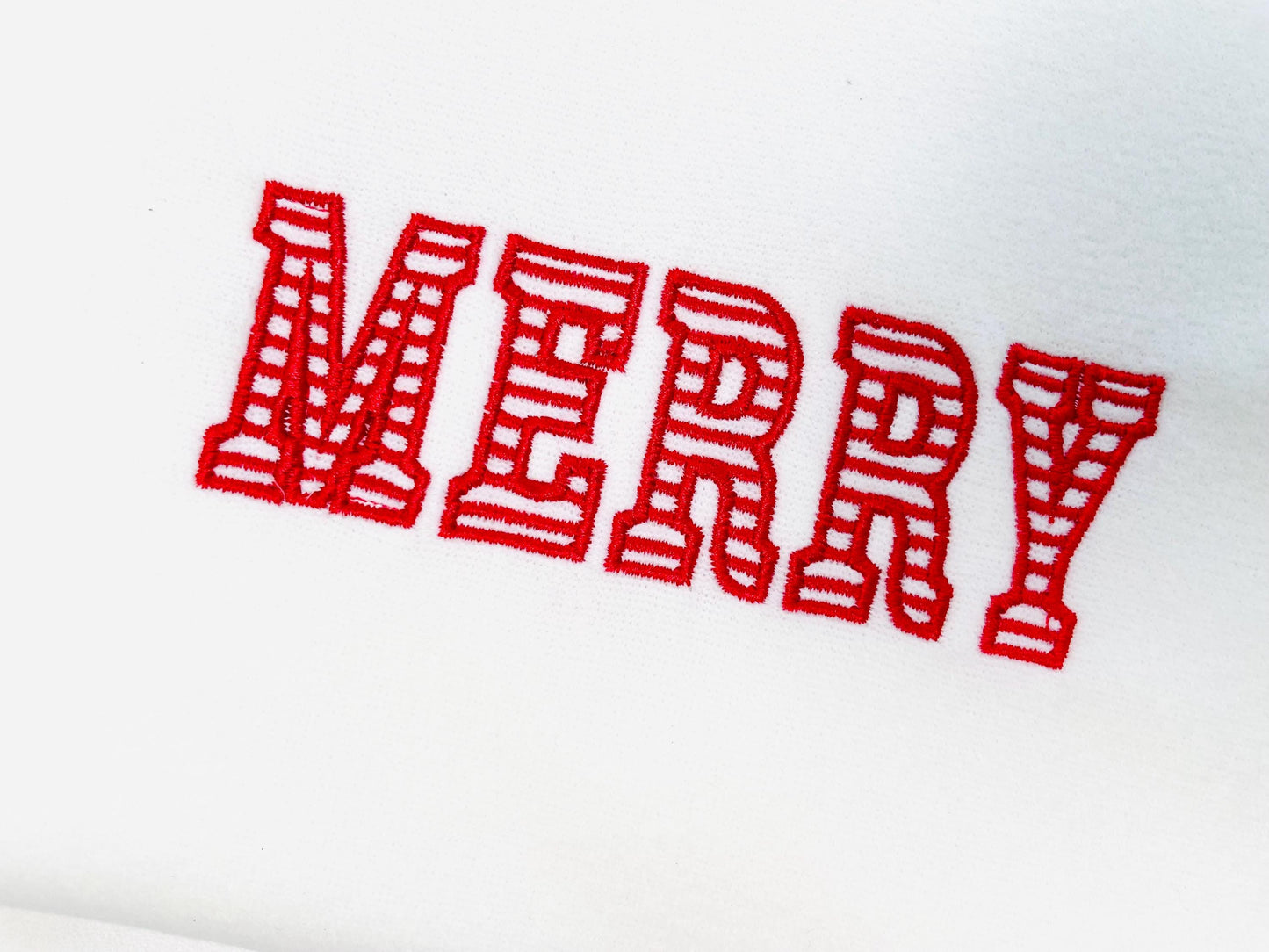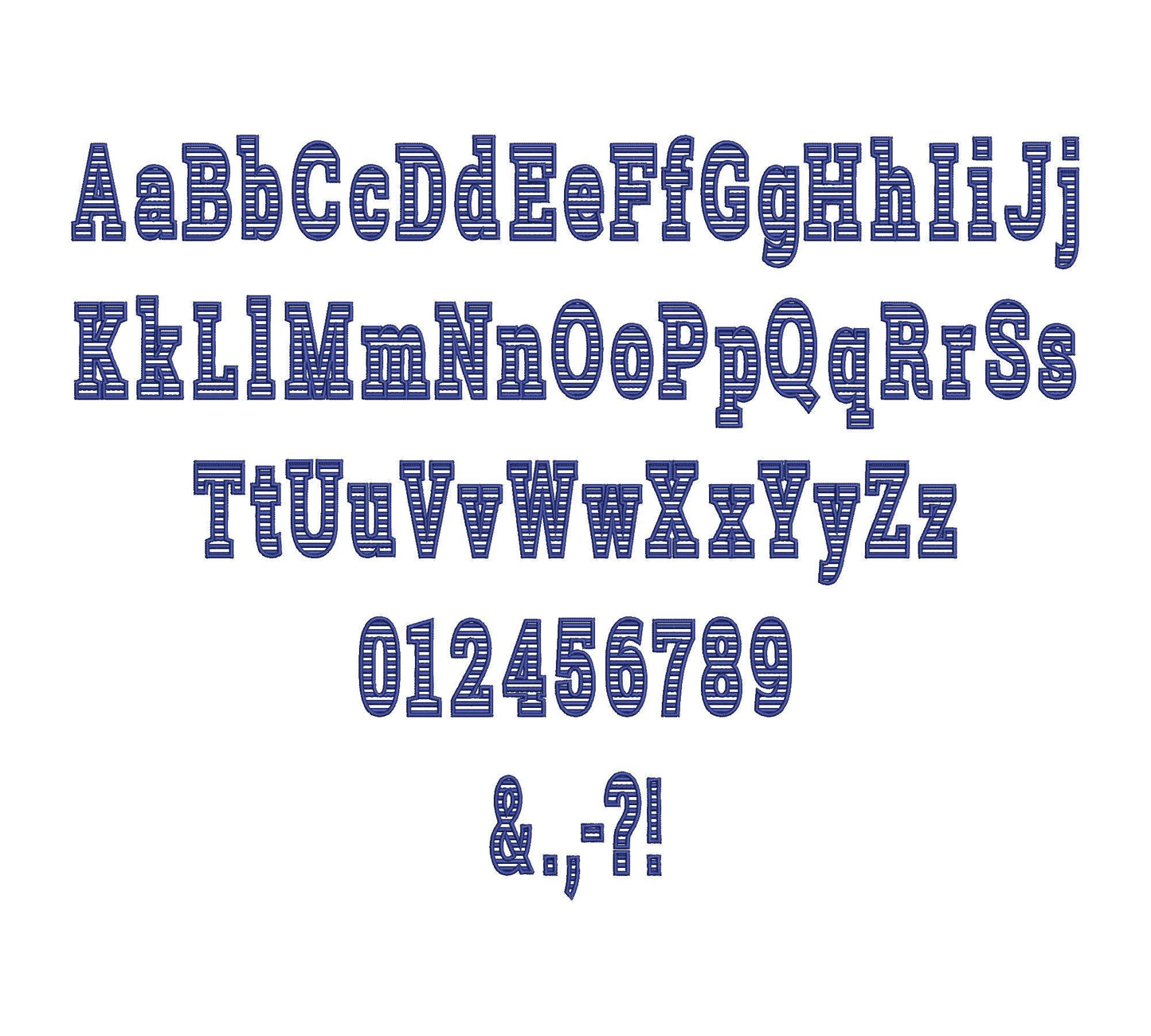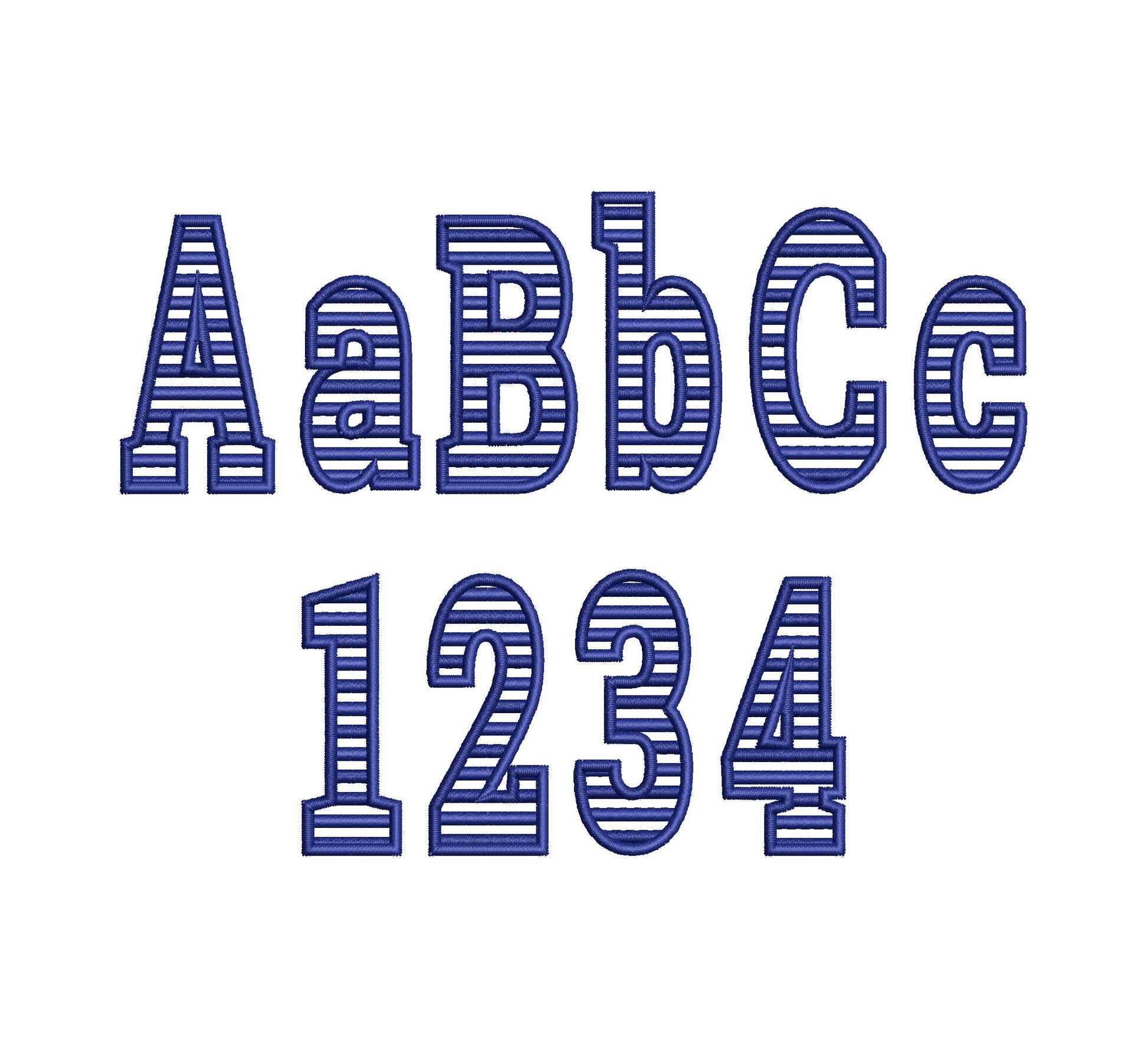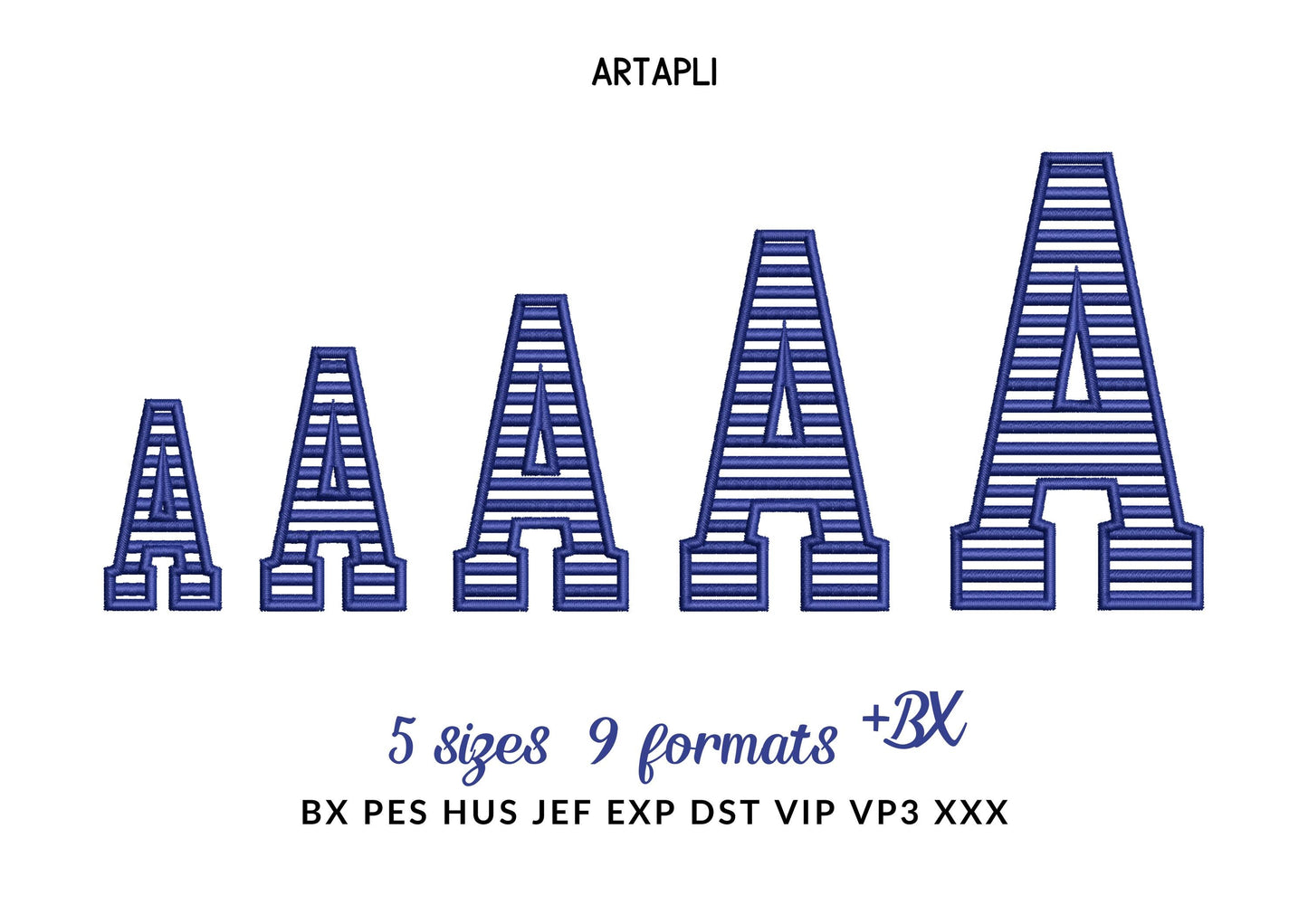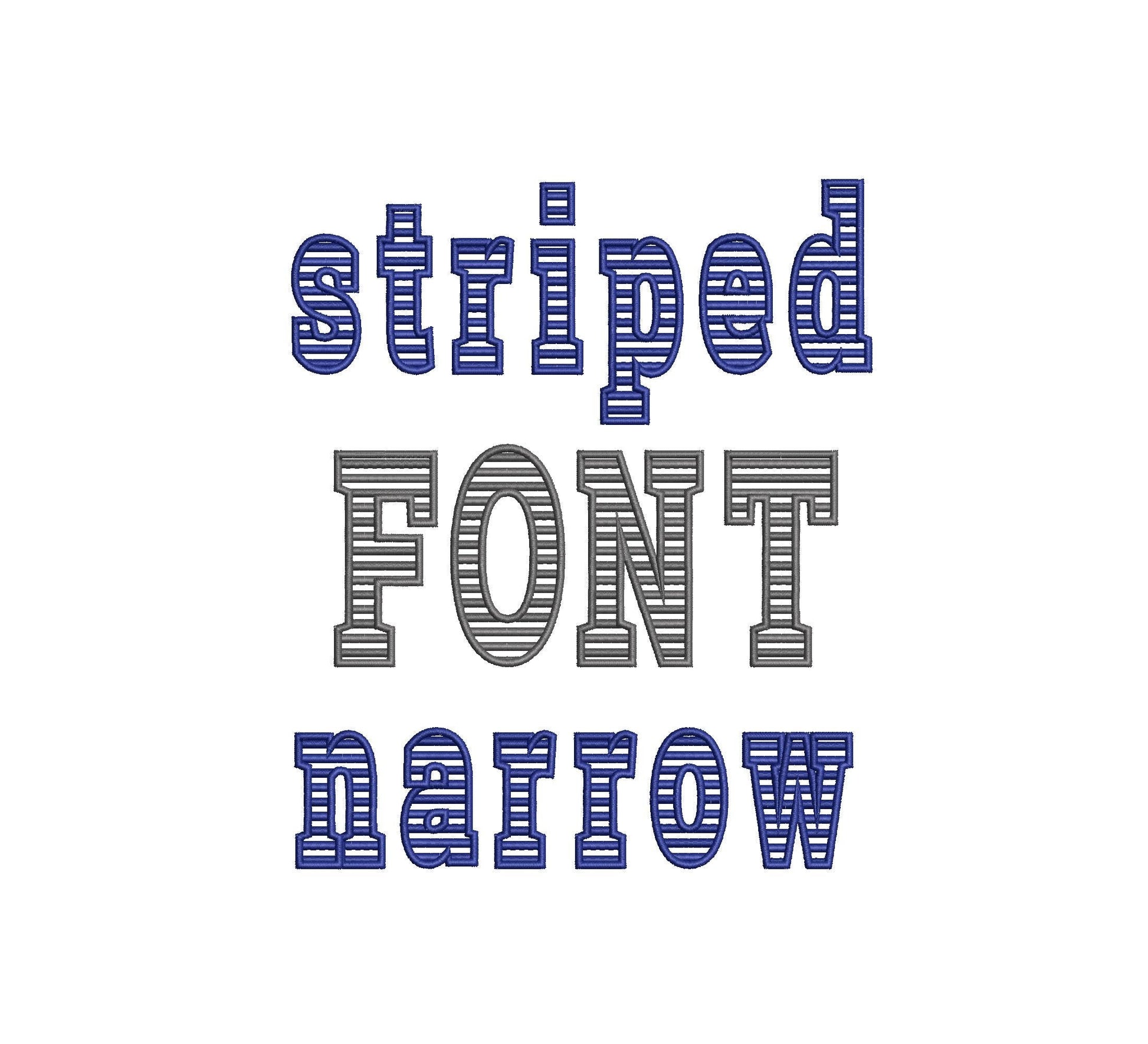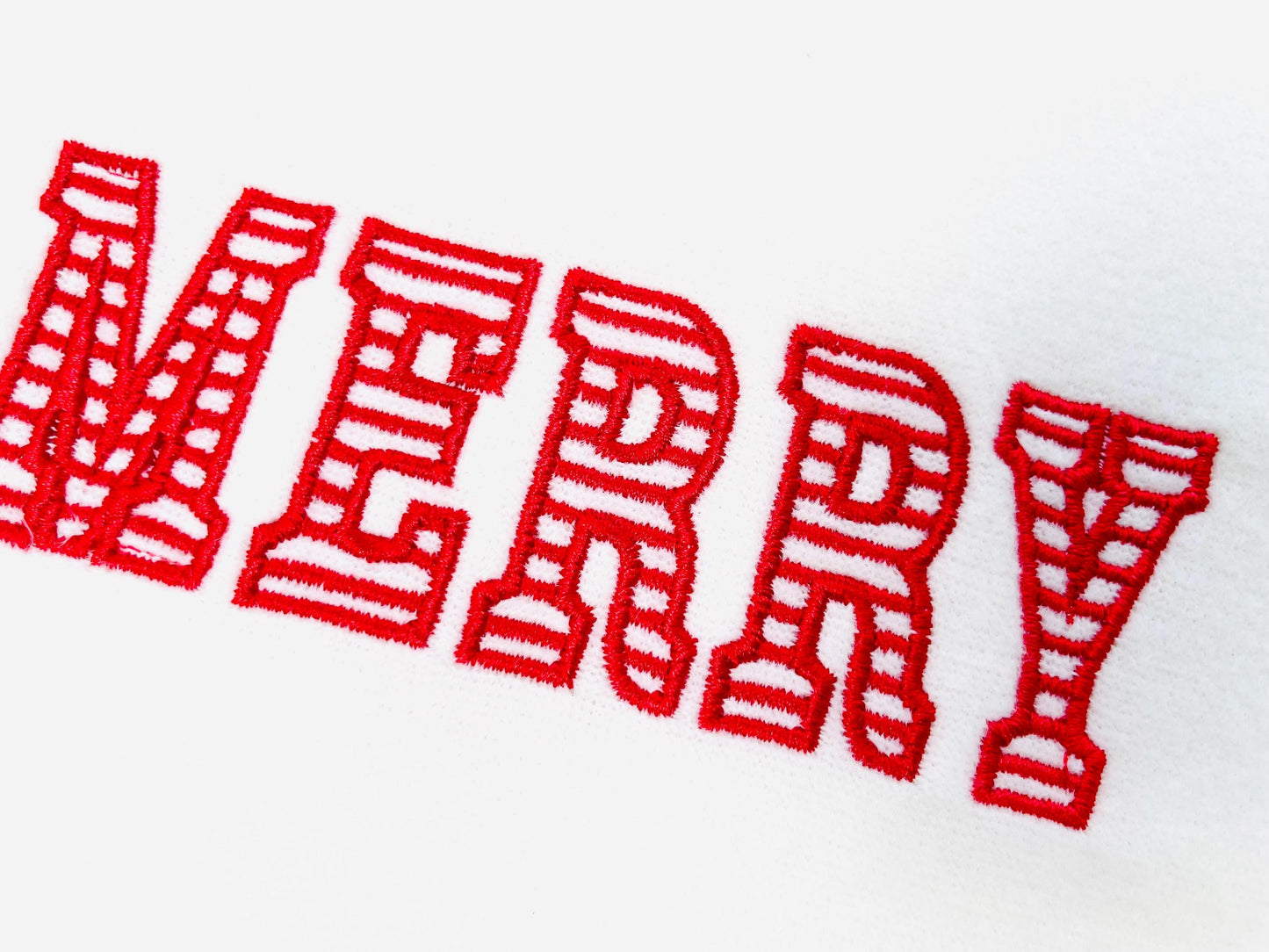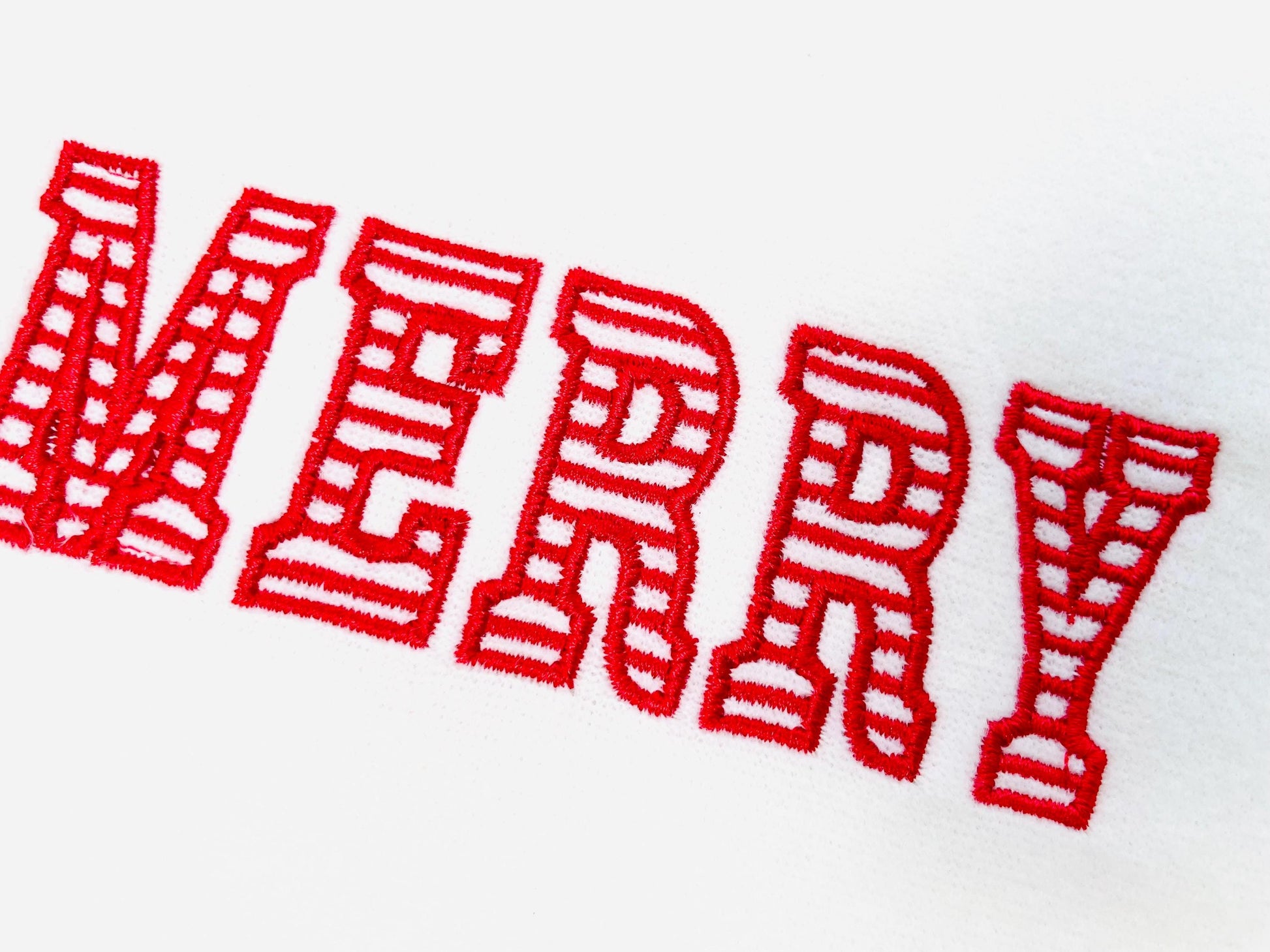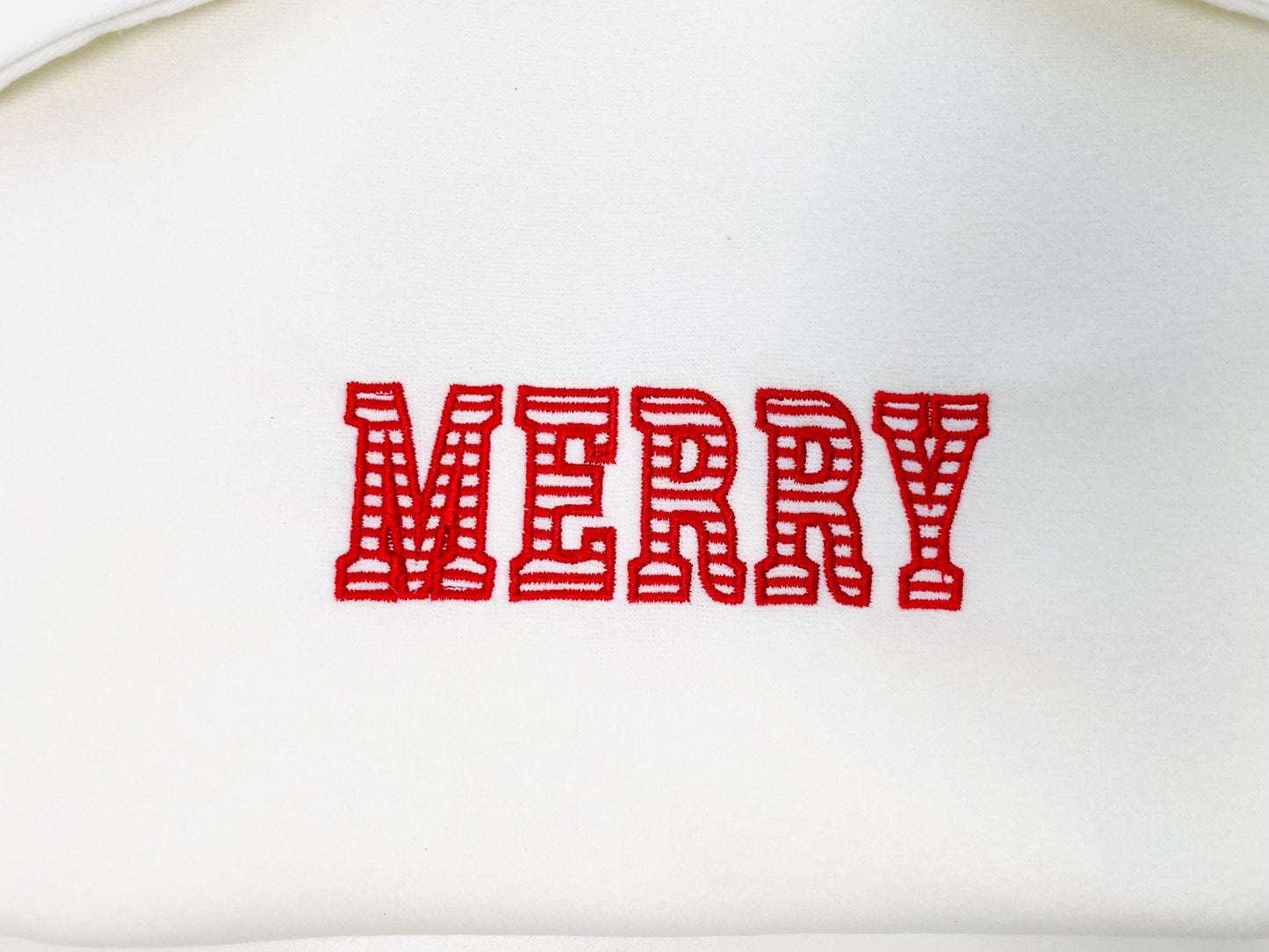
Block Striped Narrow Font
The letters come in five sizes: 1.6, 2, 2.4, 3 and 3.5 inches. Light satin stitch stripes form each letter, so the fabric shows through. Includes uppercase and lowercase letters A to Z, numbers 0 to 9 and punctuation.
- Narrow striped block font, satin stitch
- 5 sizes, 1.6 to 3.5 in